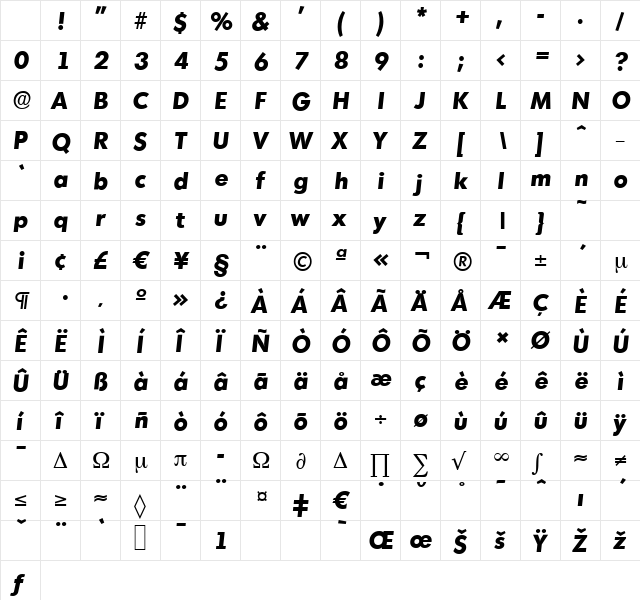
MontrealSerial-Xbold Italic
Design Context for MontrealSerial-Xbold
MontrealSerial-Xbold is a composed and adaptable typeface that performs quietly and consistently across a wide range of design contexts. The slanted form adds forward momentum and visual energy. Its bold stroke weight gives it real presence on the page.
Pro Tip: Use MontrealSerial-Xbold for emphasis, pull quotes, and subheadings where its slanted energy can add rhythm to the layout.